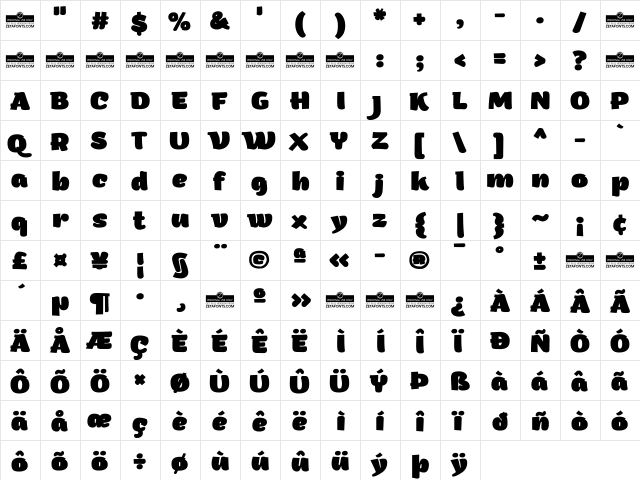
Arturo Trial Heavy Font Preview
Arturo Trial Heavy
Arturo Trial Heavy Font Details
| Style | Heavy |
| Foundry | Zetafonts |
| Designer | Francesco Canovaro |
Design Context for Arturo Trial Typeface
Arturo Trial takes a measured approach to typography — its balanced proportions and neutral character make it a reliable workhorse for both digital and print work.